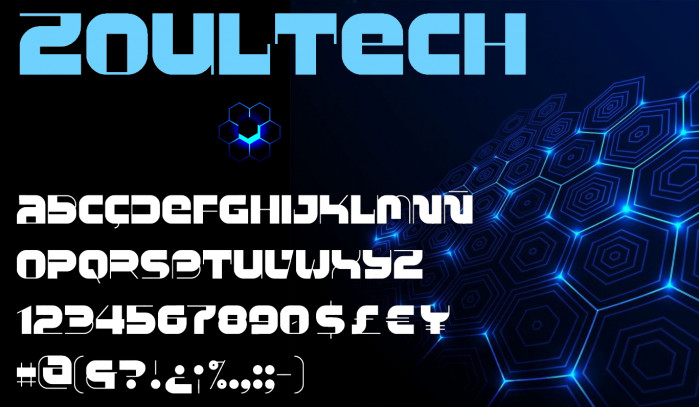
A tech-like font inspired (one more time) by some glyphs from Insider Bold, a work by the prolific Dmitriy Sychiov.
Wow, very cool and I'm happy to be inspired by cool fonts! I also made cyrillization of your fonts, you know, and it inspired me a lot - it's cool that fs has such features and I would like designers to think about it more often leaving their fonts open for cloning. I can already see how Cyrillic can look in this font, but now you have a new license without cloning, but I can`t blame you (and I already did something similar in the Halo). I would also like to add that your font looks great with db catch. Again, this is a great font!